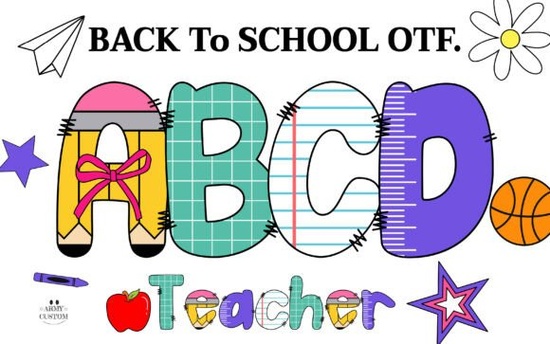
Finding the right font for school-themed projects can make or break a design. The Back to School Army Font is a bold, colorful typeface built for crafts, invitations, stationery, and print-on-demand products that need a fun, energetic look. If you work with school-related designs or seasonal products, this font brings a playful military-inspired style that stands out without being hard to read.
What Is the Back to School Army Font?
This is a display font with thick, blocky letterforms and a colorful, hand-drawn feel. It draws on army and military visual cues think stencil shapes and bold silhouettes but keeps things approachable and kid-friendly. Each letter carries enough visual weight to work as a headline or standalone design element.
The font works well because it fills a specific gap: it's bold enough for headers and signage but still reads clearly at smaller sizes on cards and labels. That balance matters when you're designing products that need to look good both on screen and in print.
Who Should Use This Font?
This typeface fits a wide range of creative projects. Here are some of the people who get the most value from it:
- Print-on-demand sellers designing back-to-school t-shirts, backpacks, lunchboxes, and stickers
- Teachers and tutors making classroom decorations, bulletin boards, and name tags
- Scrapbookers adding themed titles and captions to memory pages
- Small business owners creating seasonal promotions, sale banners, and flyers
- Party planners designing invitations, cupcake toppers, and banners for school-themed events
- Bloggers and content creators looking for eye-catching headers and social media graphics
If your audience includes parents, students, or educators, a font like this gives your designs an immediate thematic connection. People recognize the "back to school" visual language right away.
What Can You Make With It?
The versatility of this font goes beyond basic text. Here are some practical project ideas:
- Greeting cards Use it for the front message or headline on welcome-back cards for students
- Wall art prints Pair it with school supply illustrations for nursery or classroom decor
- Party invitations Create themed invites for school kickoff parties or teacher appreciation events
- Blog banners Add seasonal flair to your website during back-to-school season
- Scrapbook layouts Frame your photos with bold, colorful titles
- T-shirt designs Combine it with simple graphics for POD products on platforms like Redbubble or Merch by Amazon
- Social media posts Stand out in feeds with large, vibrant text overlays
Because the font carries so much visual energy on its own, you don't need to layer it with heavy design elements. Sometimes a clean background and a single line of text is all it takes.
Tips for Working With Bold Display Fonts
Fonts like this one are designed to grab attention, but a few best practices will help you get cleaner results:
- Keep your text short. Display fonts work best for headlines, titles, and short phrases not paragraphs.
- Mind your spacing. Bold fonts often need adjusted letter-spacing so letters don't crowd each other. A small kerning tweak can improve readability.
- Pair it with a simple body font. If you're using this for headers, match it with a clean sans-serif or handwritten font for supporting text.
- Test at print size. What looks great on a 27-inch monitor might feel overwhelming on a 5x7 card. Always check your design at actual print dimensions.
- Use high contrast backgrounds. Since the font is colorful and bold, make sure your background doesn't compete with it. Solid, light backgrounds usually work best.
Where Does It Fit Among Similar Fonts?
If you're exploring colorful or themed fonts for school-related work, the Back to School Army Font stands out for its military-inspired edge. Other fonts in the colorful category lean more toward playful or whimsical styles, so this one fills a slightly different niche. It's a good pick when you want something that feels structured and bold rather than soft and rounded.
That said, having a few different school-themed fonts in your toolkit gives you flexibility. A single project might call for a fun headline font and a more neutral body font, and mixing styles keeps your designs from looking repetitive.